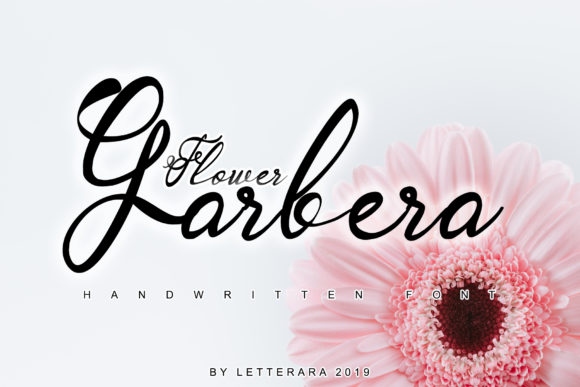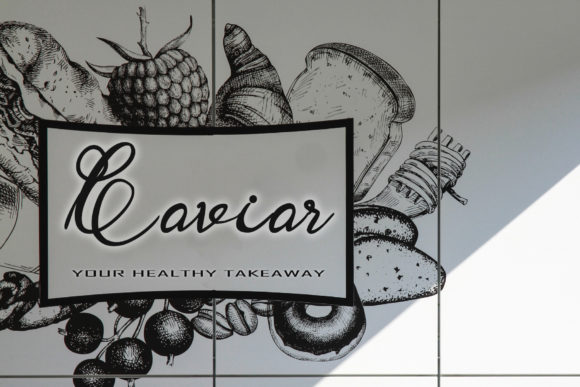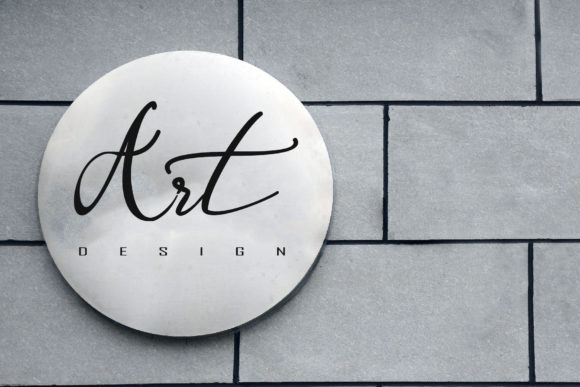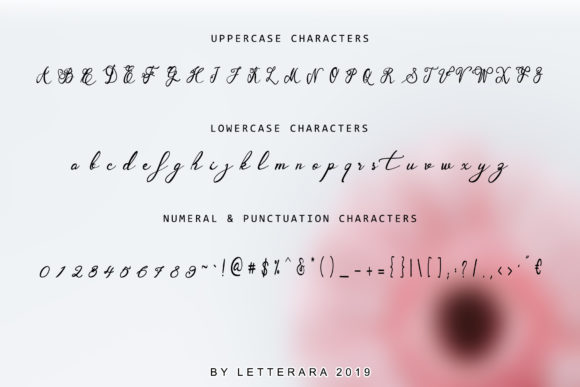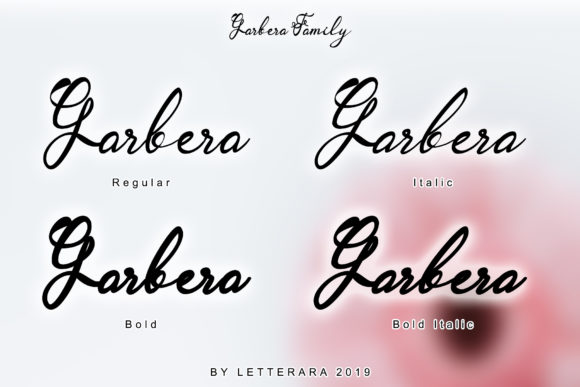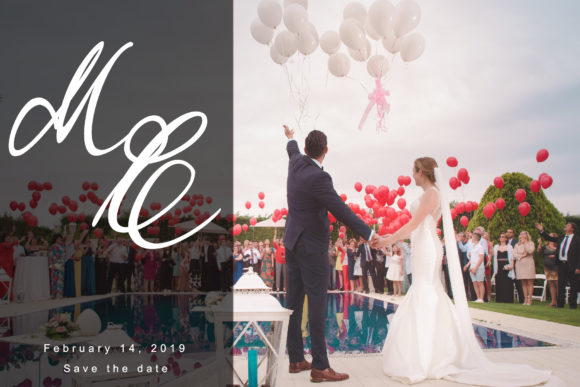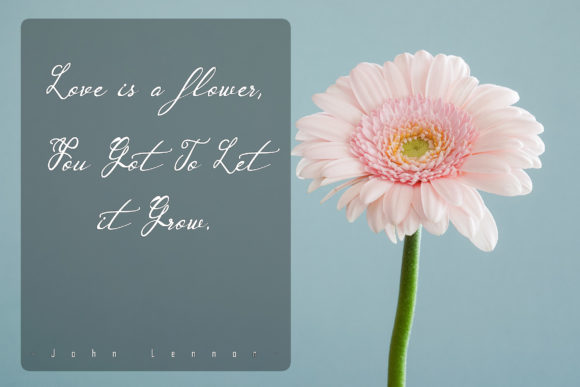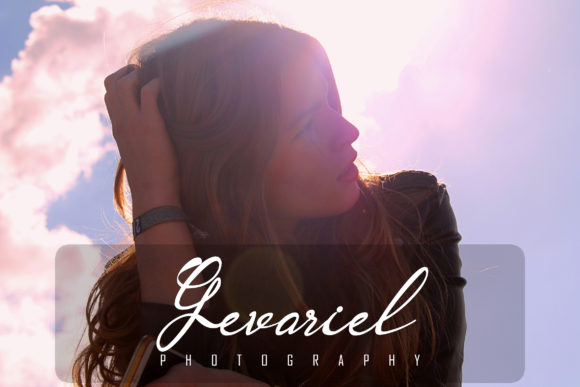
Garbera Family Font
About Garbera Family Font
The Garbera is a modern calligraphy family. It has an amazing handwritten style and was designs by Letterara. Every single letter has been carefully crafted to add a beautiful touch to your designs.
It can be used for invitations, greeting cards, posters, name cards, quotes, blog headers, branding, logos, fashion, apparel, and much more!